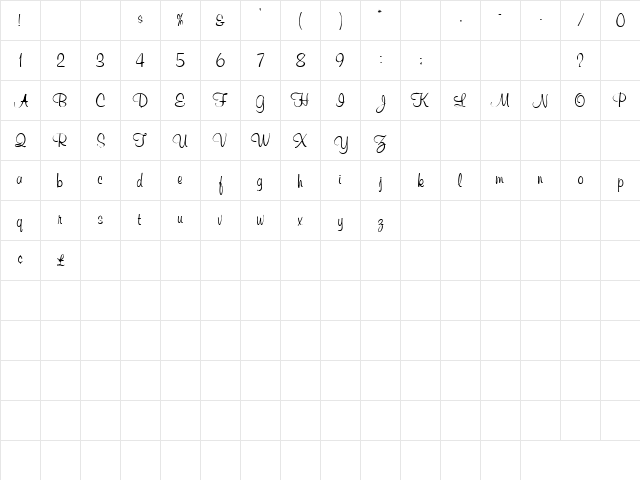
Wedding Invitation 3 Regular
Design Context for Wedding Invitation 3 Typeface
Wedding Invitation 3 takes a measured approach to typography — its balanced proportions and neutral character make it a reliable workhorse for both digital and print work.